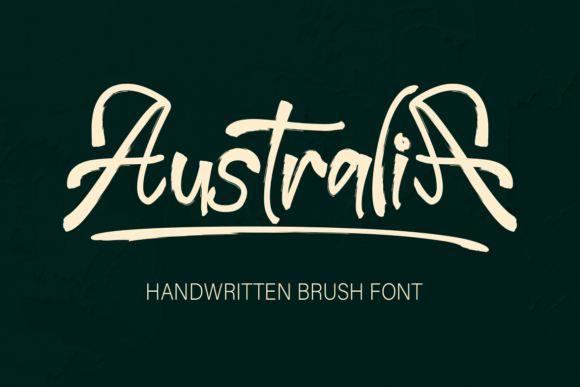
The Hunt for the Perfect Font: Discovering Australia Font
I still remember the design project that led me to discover the beautiful Australia Font. I was working on a branding project for a client who wanted a logo that exuded a sense of adventure and friendliness. As I scrolled through font after font, I couldn’t shake the feeling that something was missing. That was until I stumbled upon Australia Font – a delicate and eye-catching handwritten font that instantly captured the essence of my client’s vision.
A Personal Review of Australia Font
As I explored Australia Font, I fell in love with its unique charm and versatility. Here are a few things that make it stand out:
• ✨ Delicate and elegant handwritten style that’s perfect for a variety of design needs
• 💫 Amazingly easy to use for logos, brands, packaging, book titles, and more
• 🎨 Highly customizable with OpenType features and stylistic alternates
While Australia Font is an excellent choice for many design projects, it’s not without its quirks. Here are a few things to keep in mind:
• 🤔 Some users may find the font a bit too delicate for certain design applications
• ⚠️ Limited availability of certain character sets, so be sure to check compatibility before use
The Story Behind Australia Font
The story behind Australia Font is one of creativity and inspiration. While the font’s actual origins are unclear, it’s believed to have been designed by a team of typographers who sought to create a unique and versatile handwritten font. The result is a font that’s both elegant and approachable, perfect for a wide range of design applications.
Font Name Australia Font
Author WinType
What is Australia Font? Australia Font is a delicate and eye-catching handwritten font, perfect for logos, branding, packaging, and more.
Is Australia Font PUA encoded? Yes, Australia Font is PUA encoded, making it easy to access glyphs and swashes.